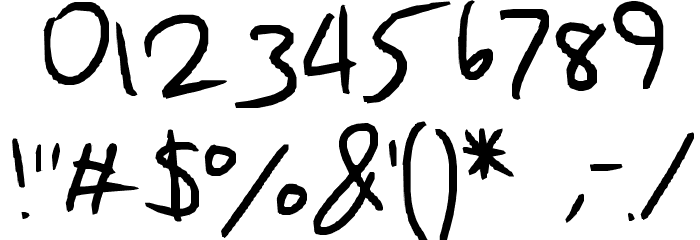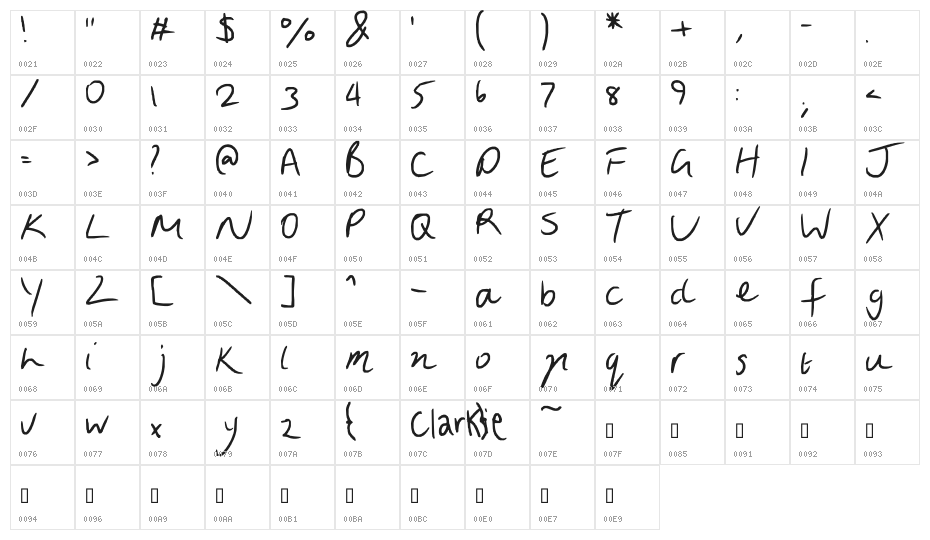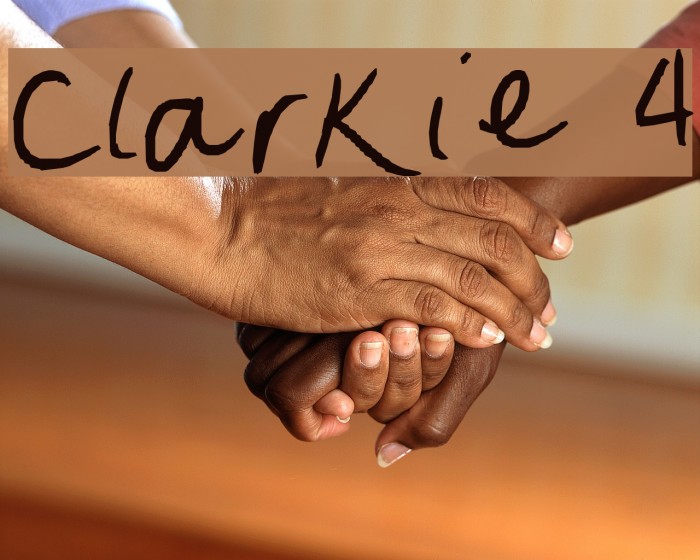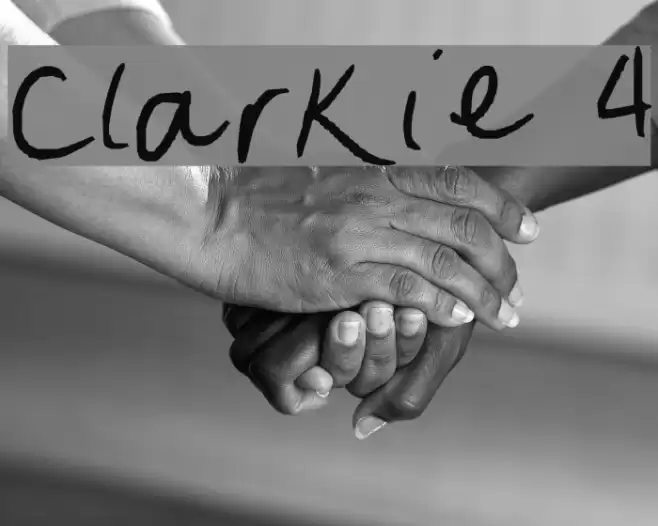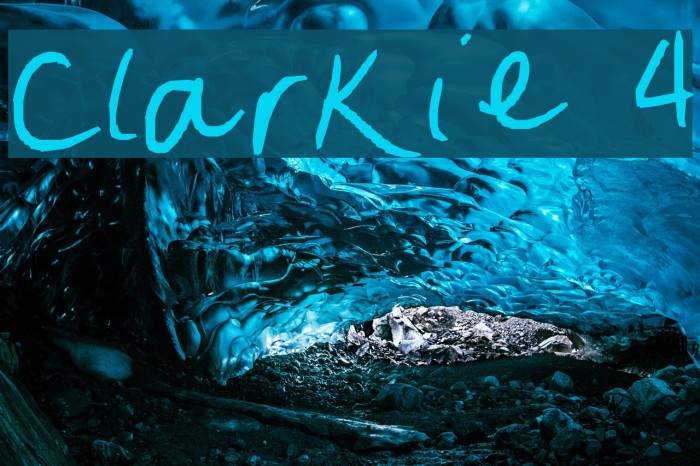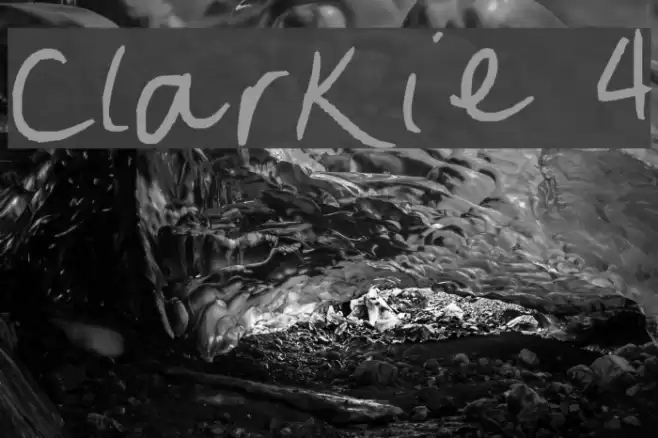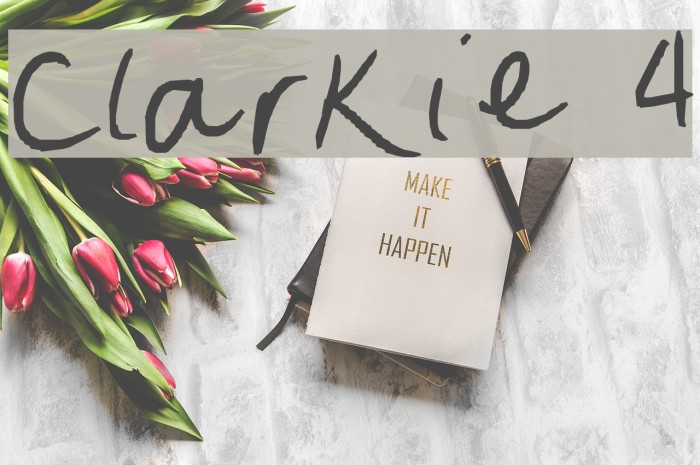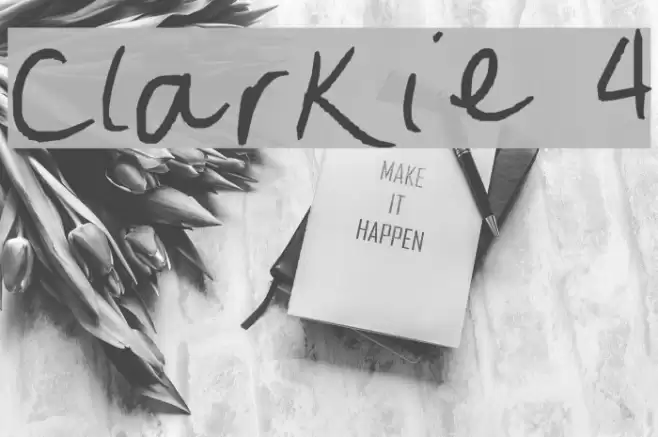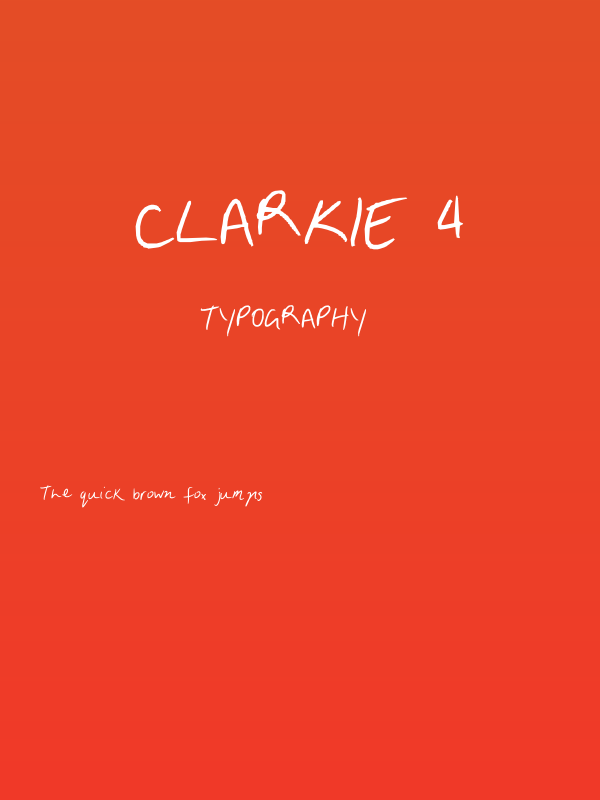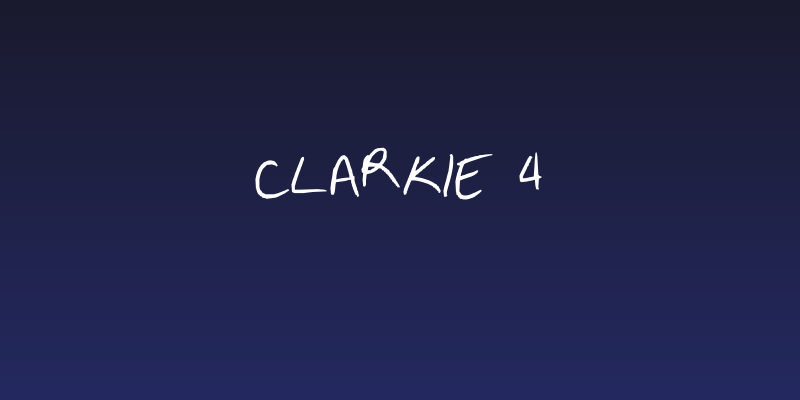
Clarkie 4 Font
Clarkie 4 Description
This font exhibits a casual, handwritten style, characterized by its fluid and natural strokes. The letters are slightly slanted, giving a dynamic and informal appearance. The uppercase and lowercase letters maintain a consistent style, with rounded edges and varying stroke widths that mimic the natural flow of handwriting. The numerals and special characters follow the same organic style, ensuring a cohesive look across all characters. This font's overall appearance is approachable and friendly, making it suitable for projects that require a personal touch.